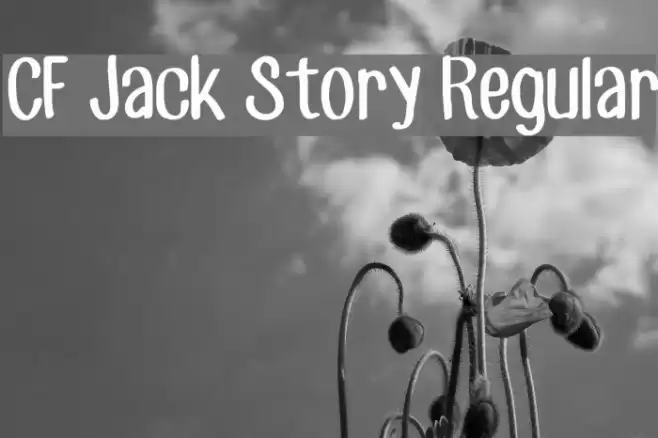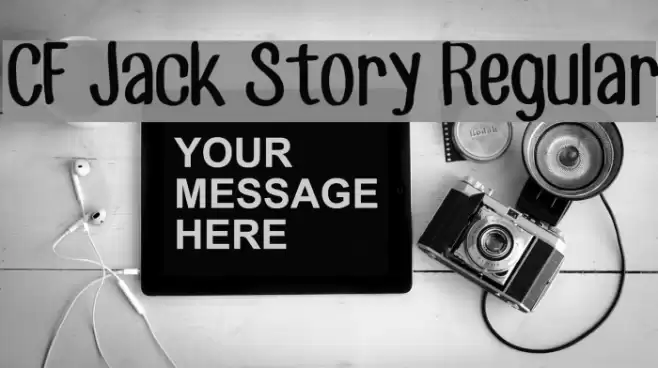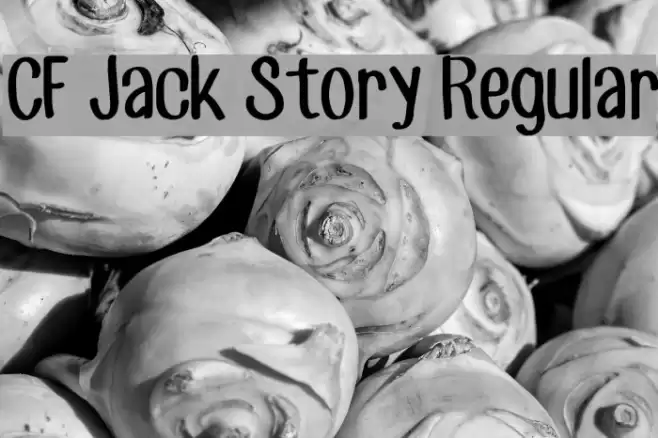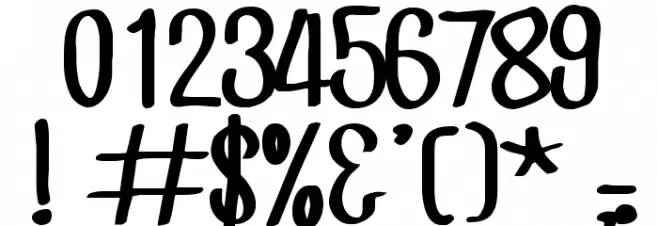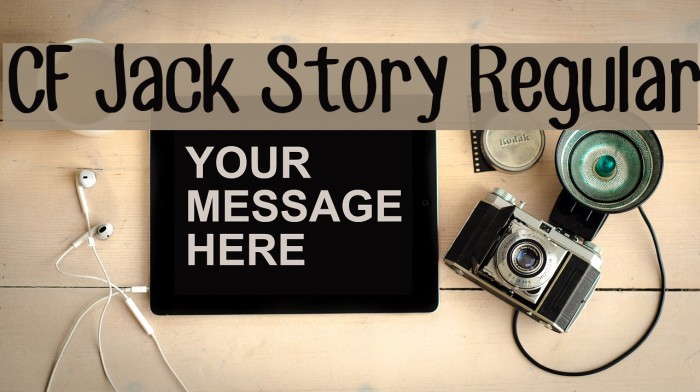
CF Jack Story Regular Font
CF Jack Story Regular Description
This font features a playful and casual handwritten style, characterized by its rounded edges and slightly irregular letterforms. The uppercase and lowercase letters maintain a consistent flow, giving a sense of movement and energy. The numerals and special characters complement the alphabet with their bold and friendly appearance. This font's informal and approachable design makes it suitable for creative and fun projects, adding a personal touch to any text.
A playful, handwritten font with rounded edges and an energetic flow from Uncategorized fonts.
- Proposed Projects: Ideal for children's books, greeting cards, posters, and branding that requires a friendly and approachable vibe.
- Overall Style: Casual
- Use Case: Headlines, Logos, Informal text